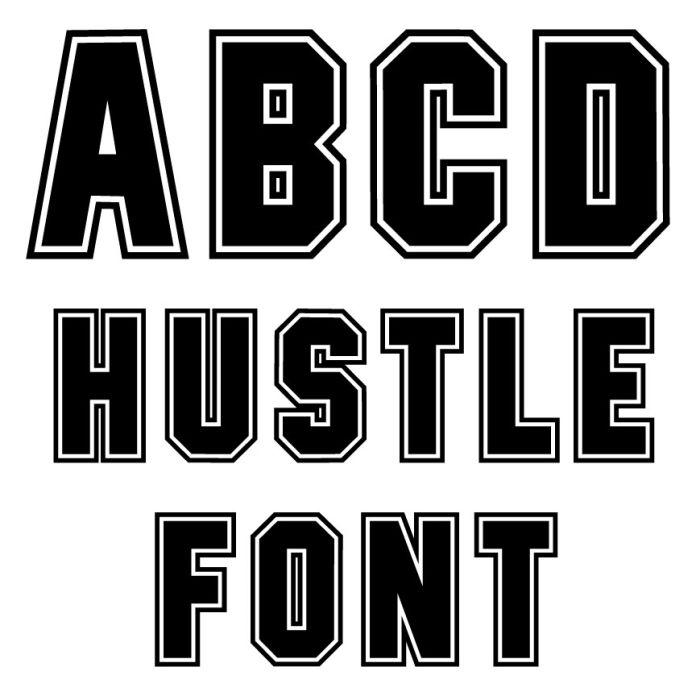
Hustle Font is a bold, athletic-style typeface perfect for sports teams, cheer squads, and school spirit projects. With strong lines and a classic varsity look, it brings high energy and standout style to any design. Ideal for jerseys, banners, posters, and team merch. Let your designs hustle harder with this powerful, all-star font! For more creative ideas and inspiration using Lori Whitlock’s files, be sure to visit her blog, Facebook page, and Instagram. Don’t forget to explore her shop for even more design possibilities!